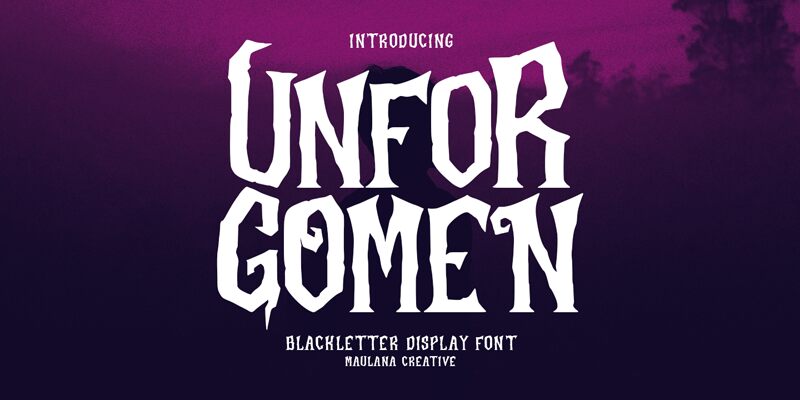
Unforgomen Free Regular
Unforgomen font by Maulana Creative combines a gothic-inspired style with a rugged appearance. This Halloween condensed font catches the eye with its distressed texture and vintage feel that delivers a dramatic presence on any design. Users will instantly notice the peculiar faded effect which holds more mystery than meets the eye.